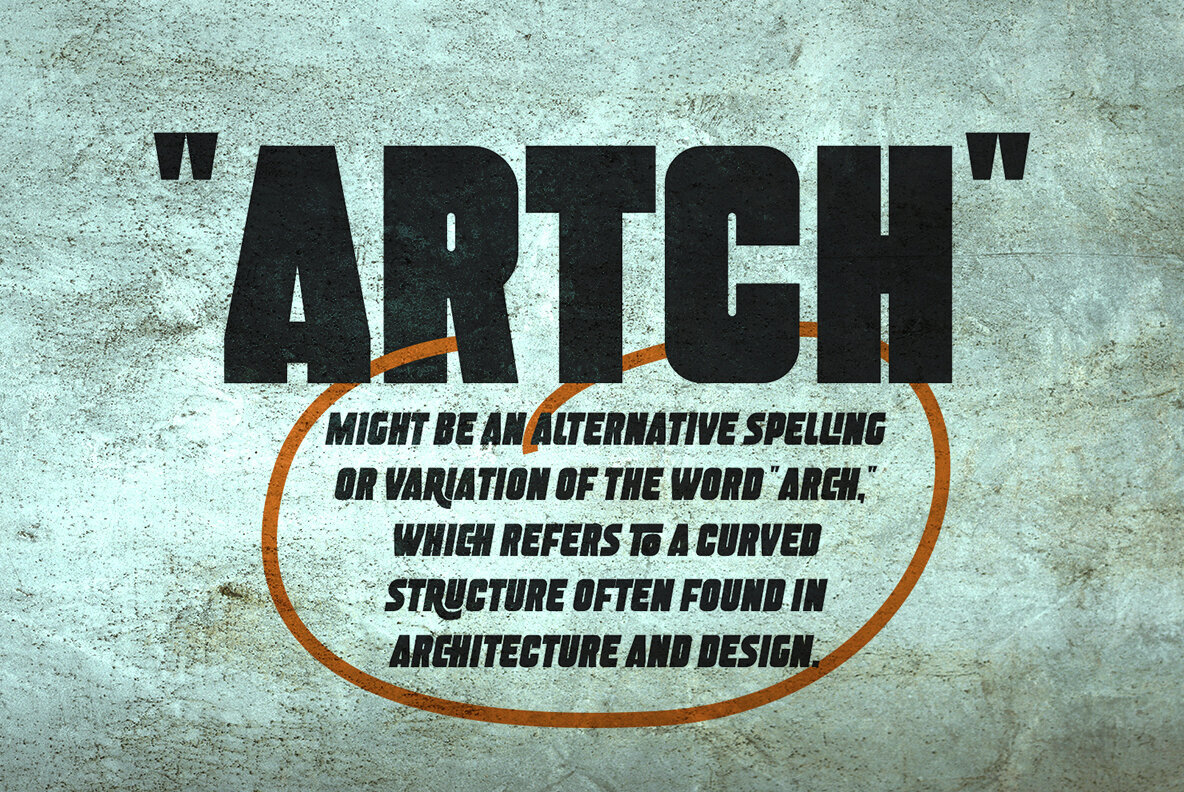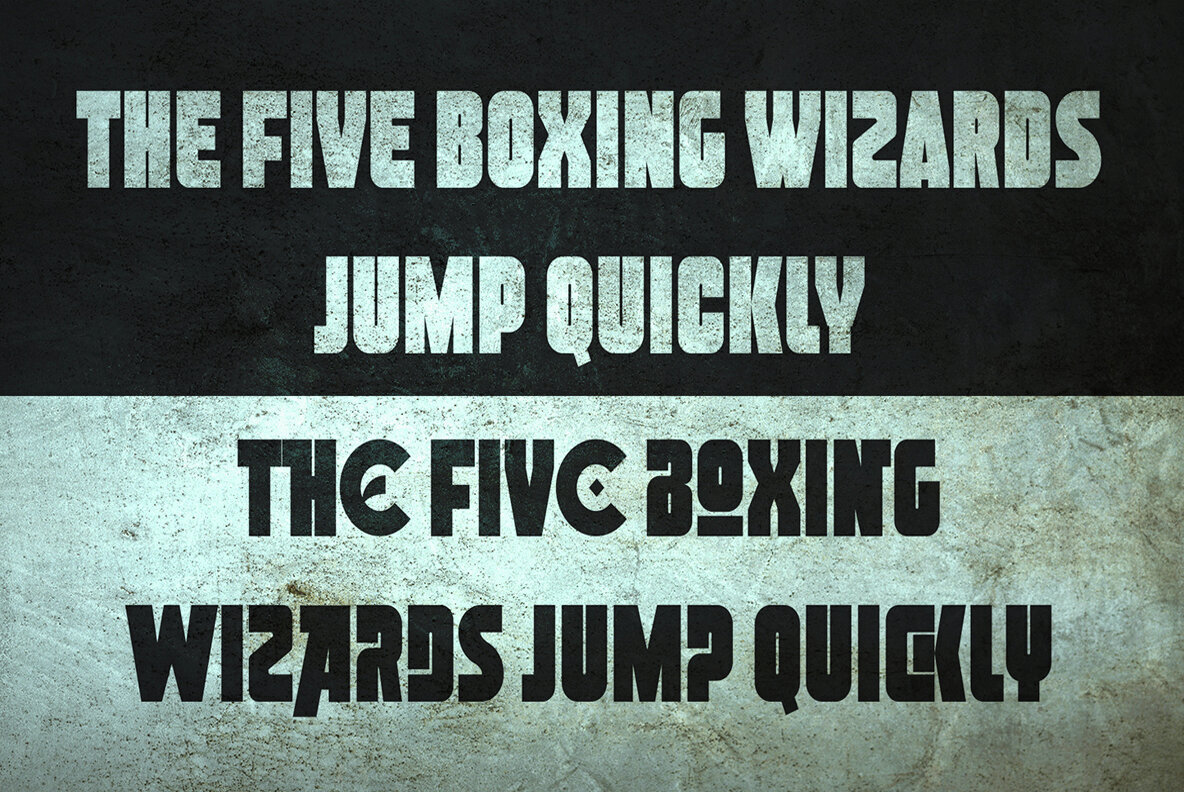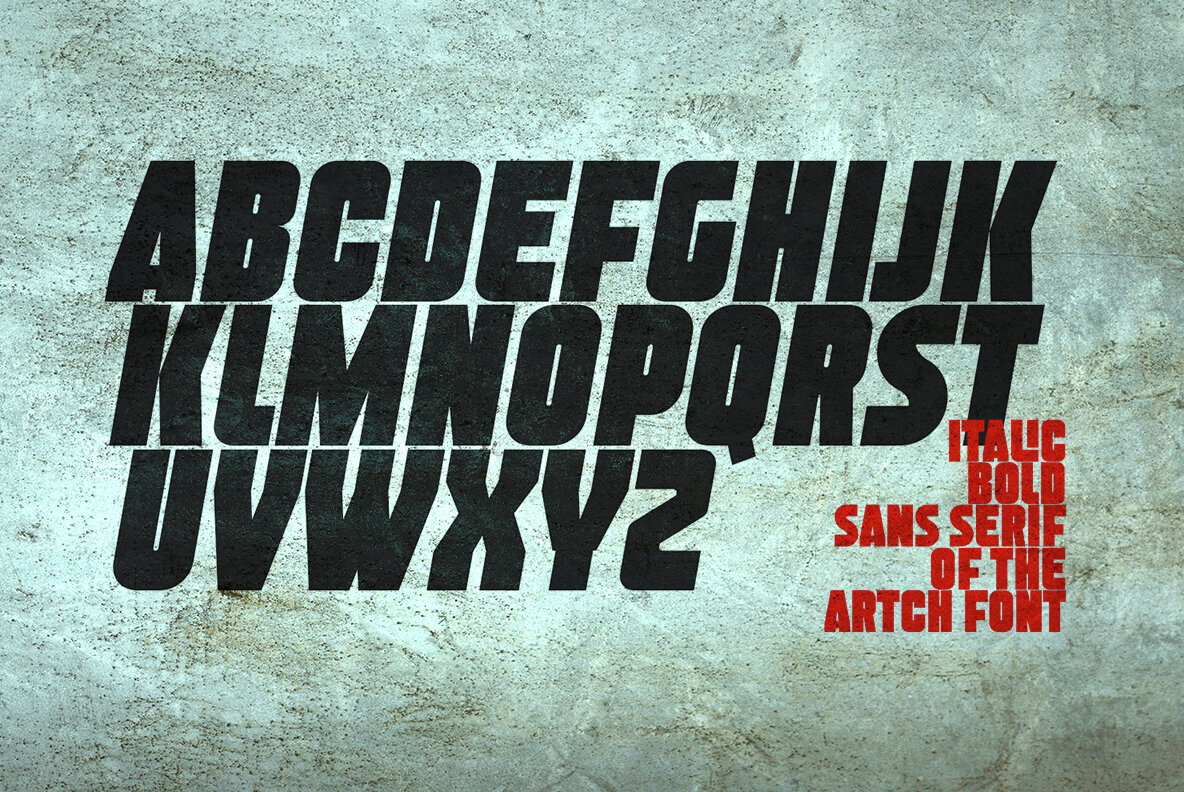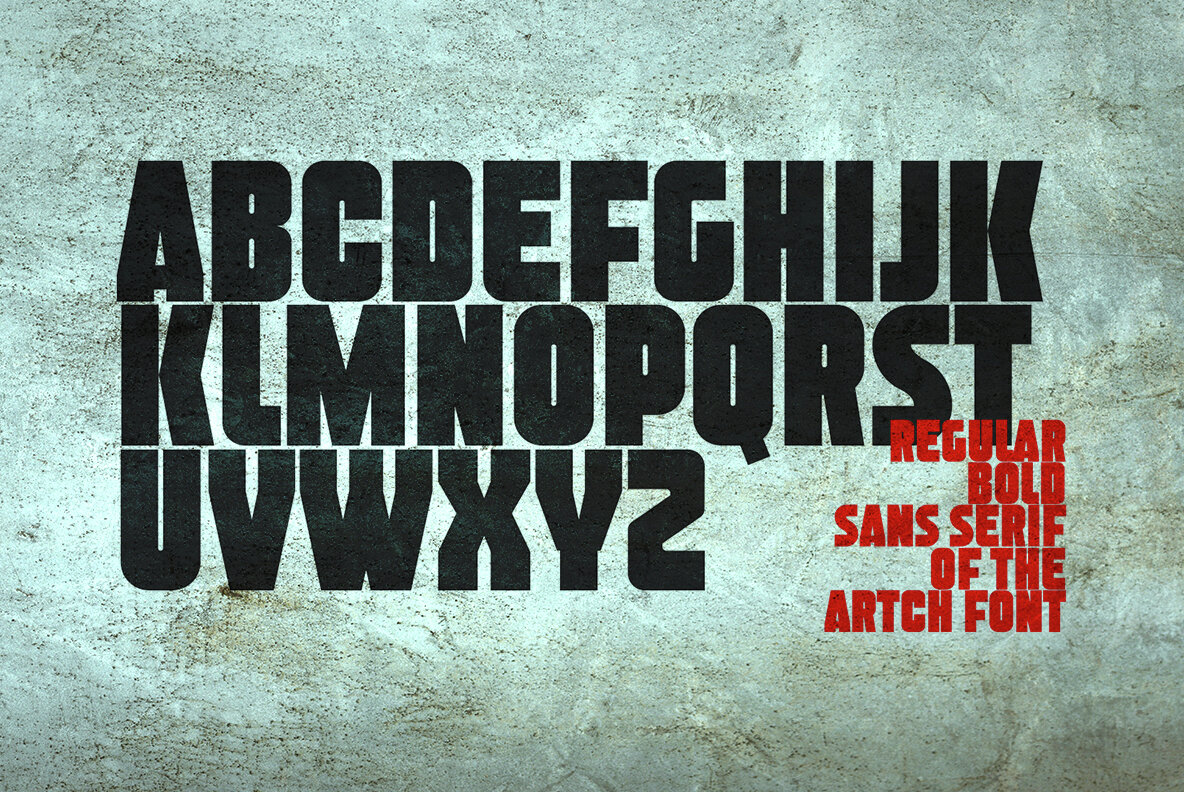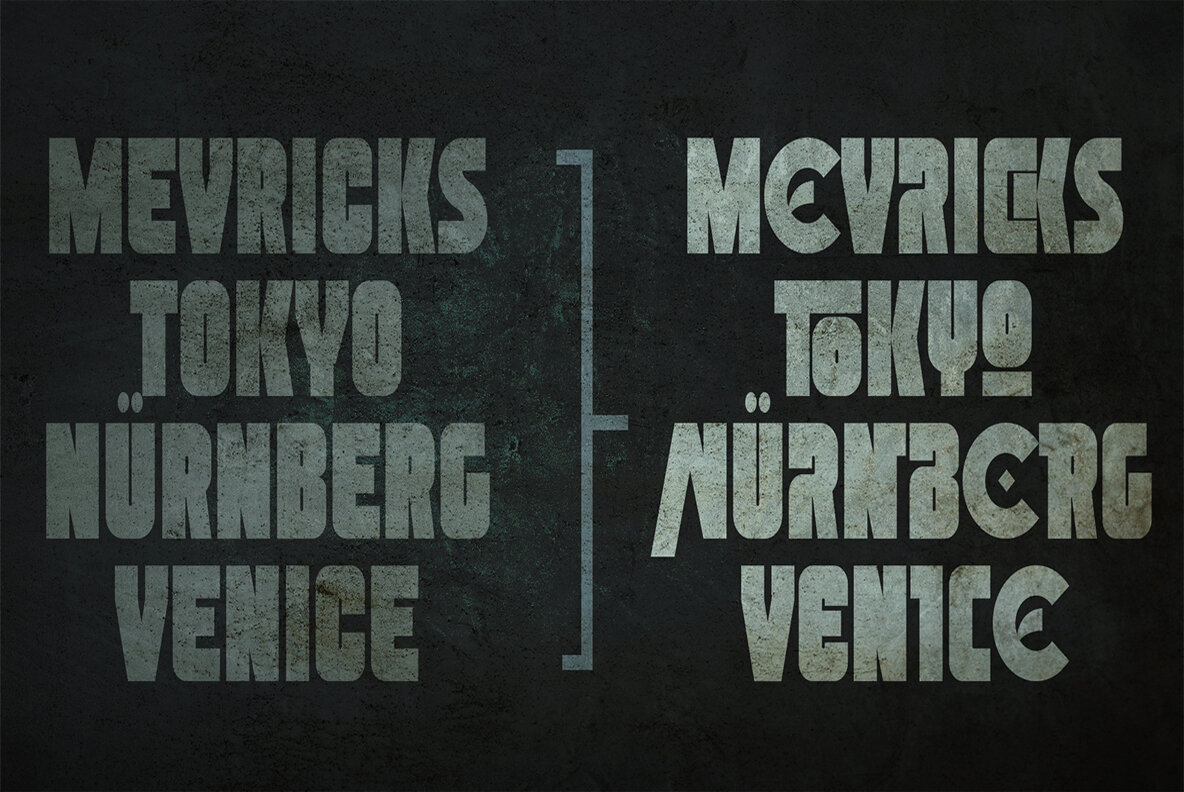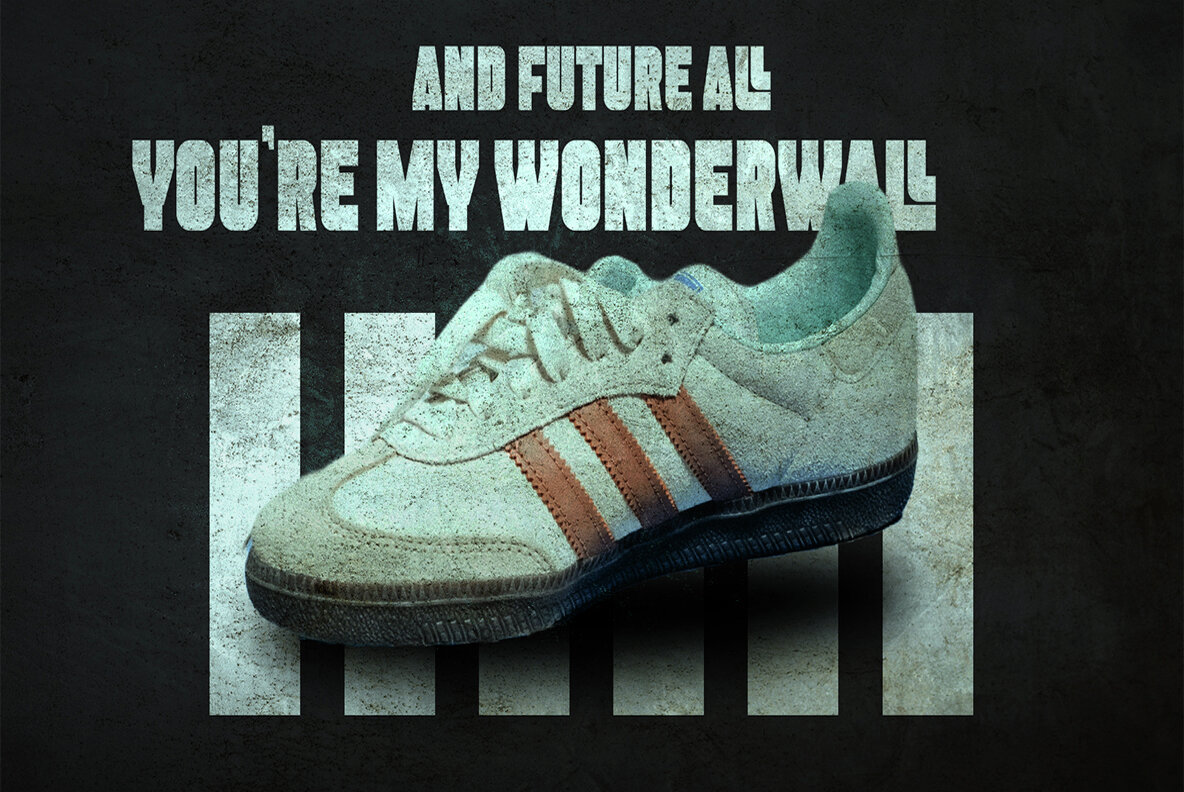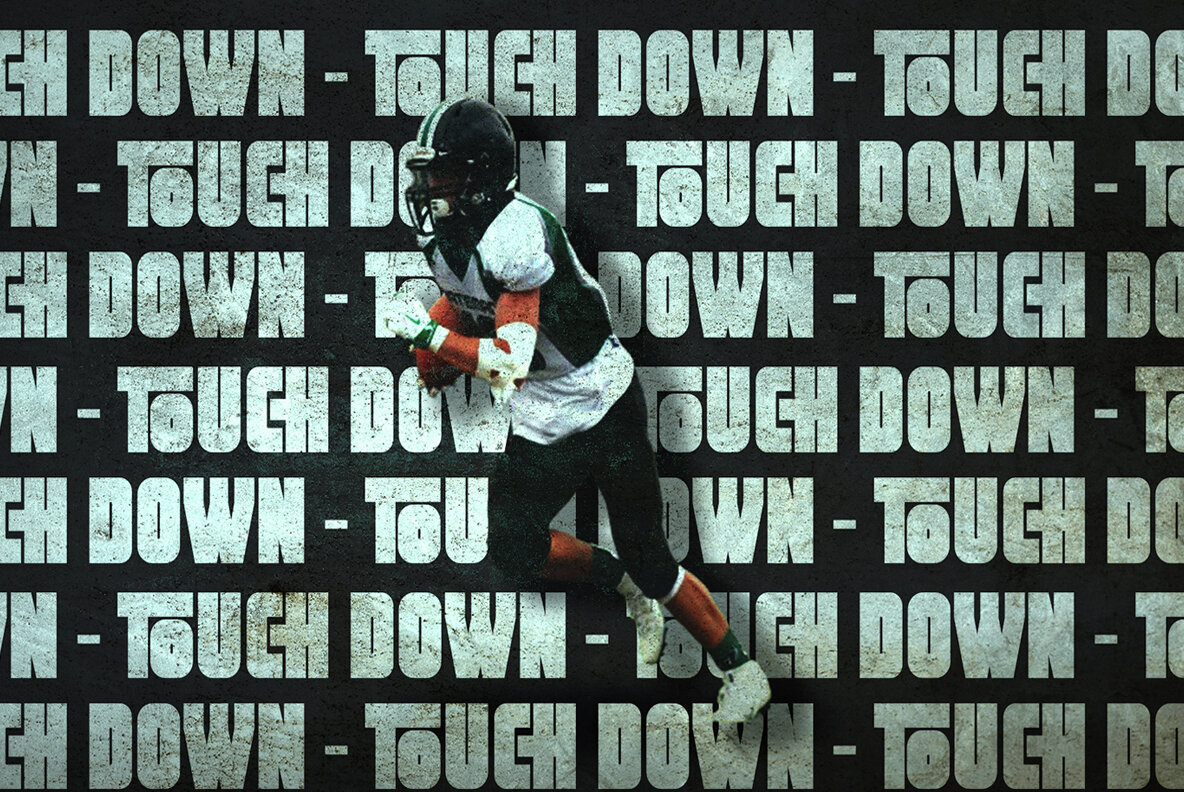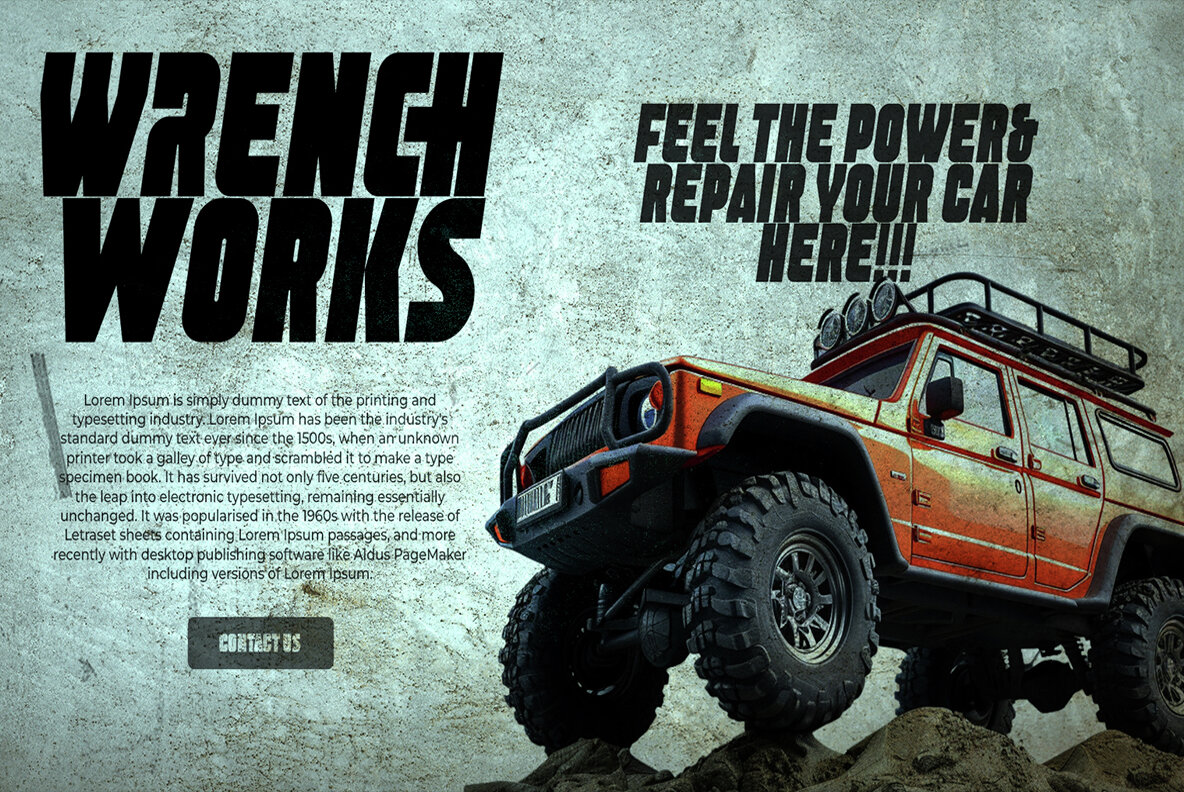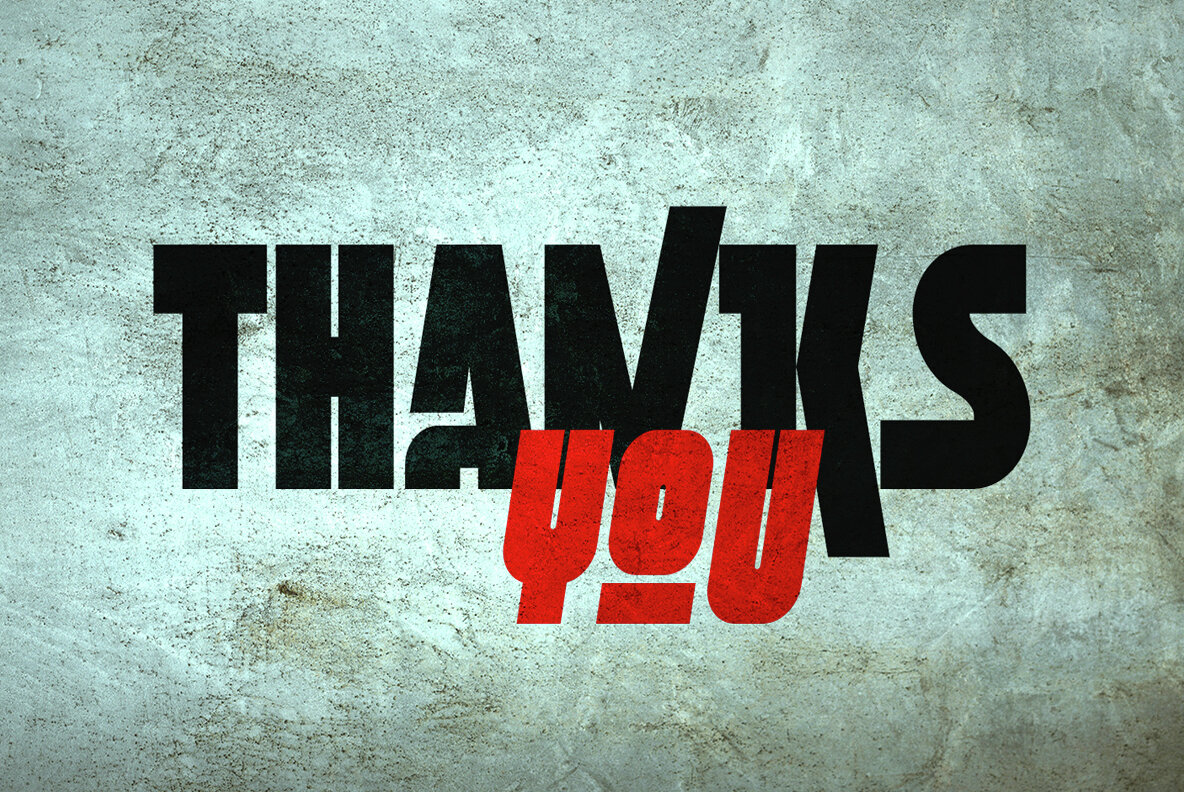
Artch Font
Introducing Artch, is Inspired by the style of design that is currently popular, and this is the answer to all the needs of every idea that you will pour in this modern era, with a thick and solid style in each letter as if this font has a soul in it. We highly recommend using a program that supports OpenType features and Glyphs panels like many of Adobe apps and Corel Draw, so you can see and access all Glyph variations.
Its weight is superior in posters, social media, headlines, titles, large format print - and wherever you want to be noticed.